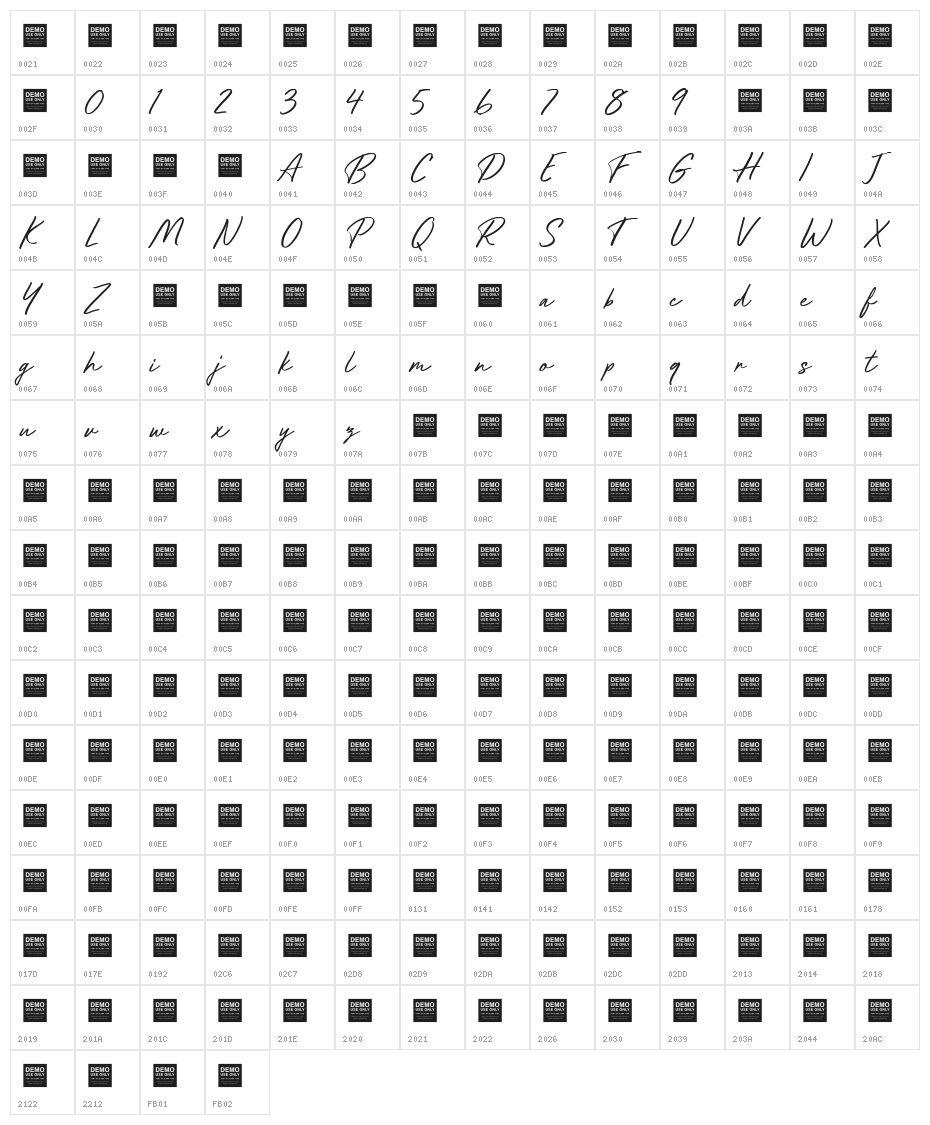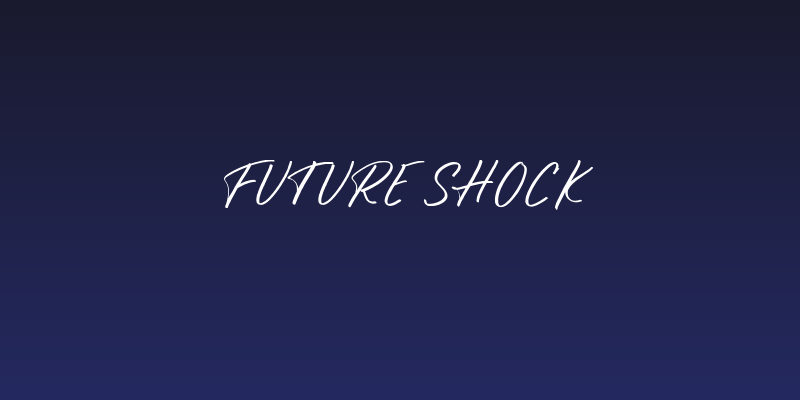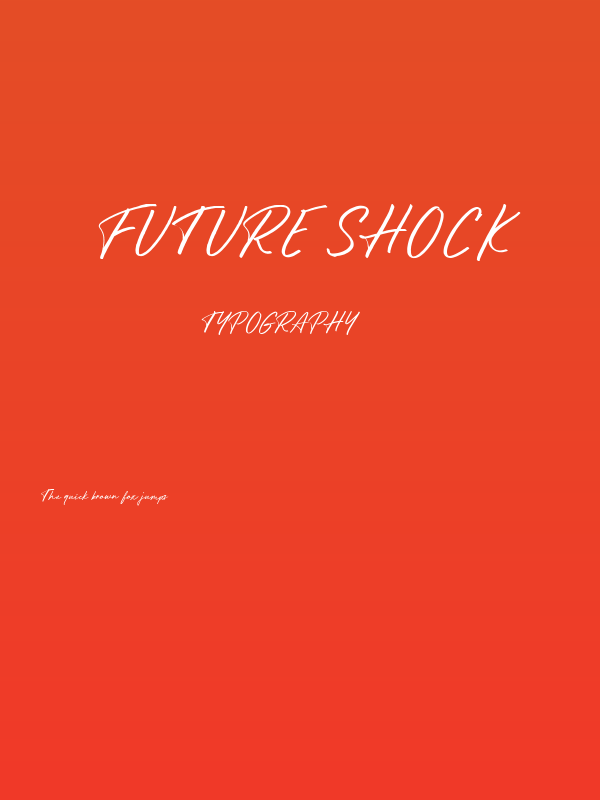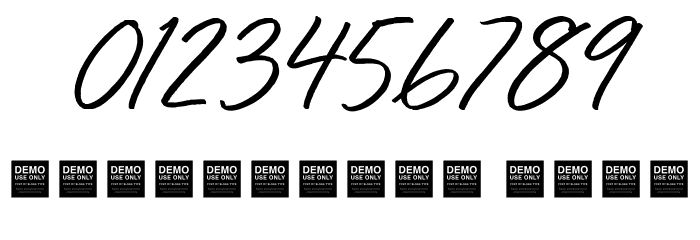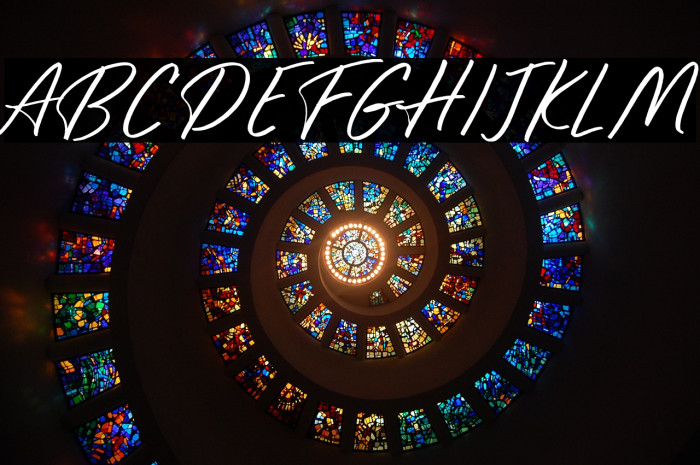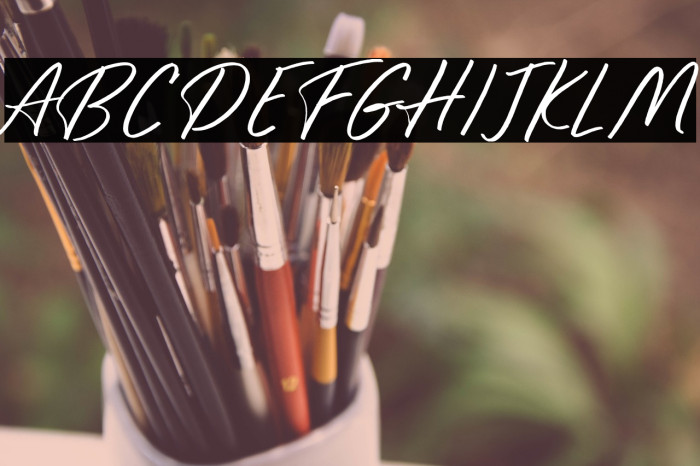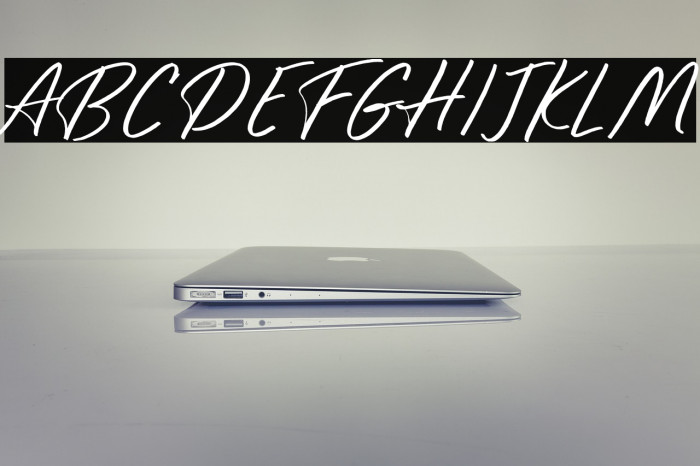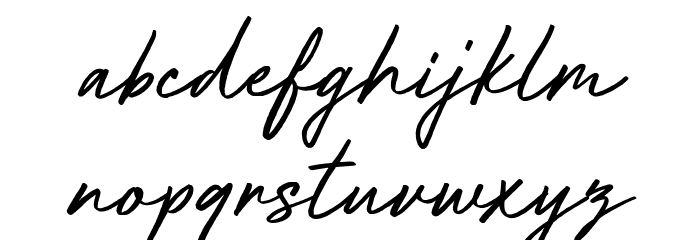
Future Shock Font
Future Shock Description
This font features a dynamic and fluid script style, characterized by its elegant, flowing lines and cursive letterforms. The uppercase letters exhibit a graceful, sweeping motion, while the lowercase letters maintain a consistent rhythm and smooth connectivity. The numerals are equally stylish, complementing the overall aesthetic with their rounded and slightly slanted appearance. This font exudes a sense of sophistication and creativity, making it ideal for projects that require a personal and artistic touch. The consistent stroke width and moderate character spacing enhance readability while maintaining the font's decorative appeal.
| Proposed Projects | Ideal for wedding invitations, greeting cards, branding, and artistic projects. |